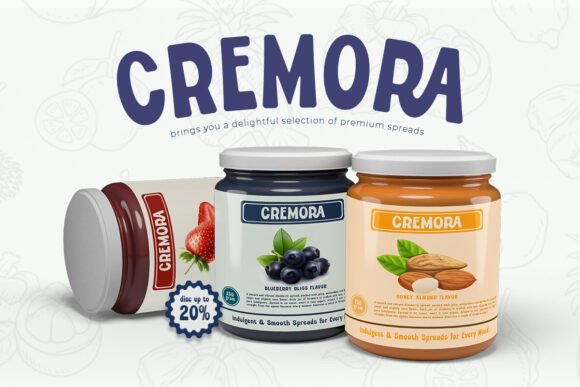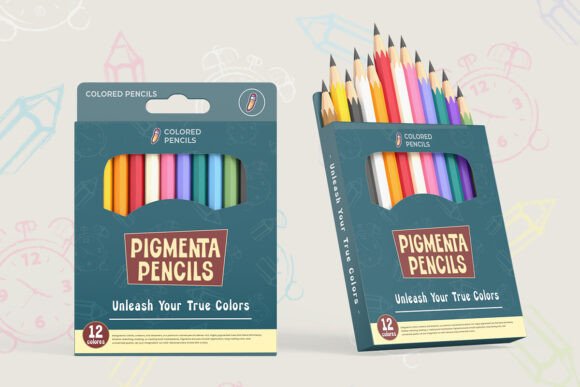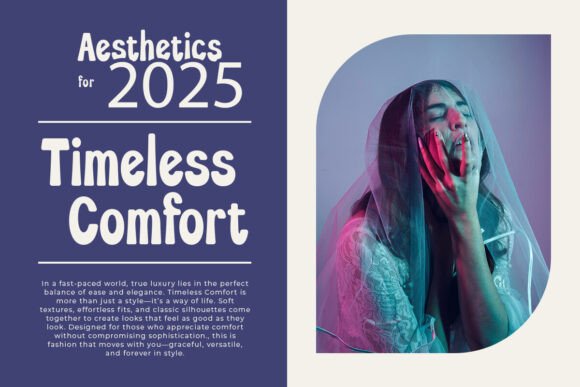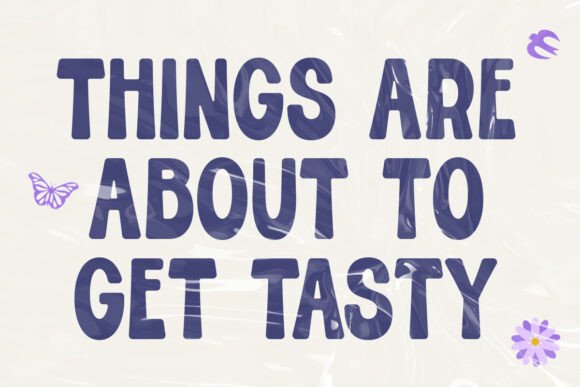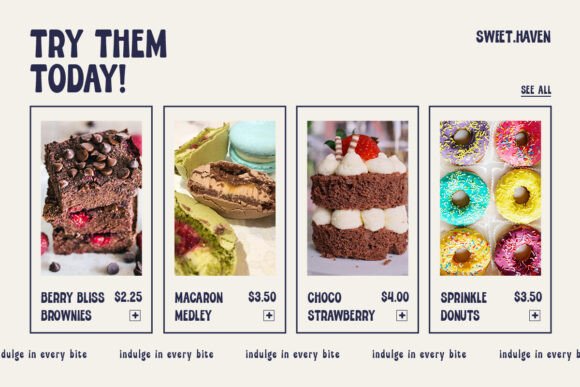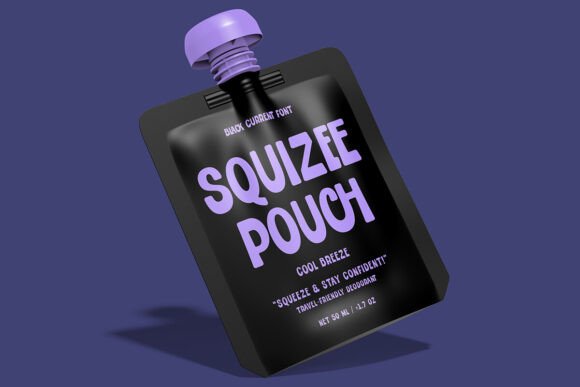
Introducing Black Currant Soft Condensed: The Ultimate Decorative Retro Serif Font
Are you on the hunt for a font that can add a touch of nostalgia and charm to your creative projects? Look no further than Black Currant Soft Condensed, a beautiful decorative retro serif font that’s perfect for designers and crafters alike. With its soft, condensed letterforms and vintage flair, this font is sure to bring a unique and captivating vibe to your designs.
A Perfect Blend of Elegance and Personality
Black Currant Soft Condensed is designed to offer a perfect blend of elegance and personality, making it ideal for a wide range of creative projects. The font features smooth edges and a retro-inspired style, which adds warmth and character to any design. Whether you’re working on a logo, poster, product packaging, or social media graphic, this font is sure to make your project stand out.
One of the standout features of Black Currant Soft Condensed is its unique combination of uppercase and lowercase styles. This allows you to experiment with different combinations and create visually appealing text arrangements that add depth and interest to your designs.
Multilingual Support for Global Reach
In today’s digital age, it’s more important than ever to create designs that can connect with audiences worldwide. That’s why Black Currant Soft Condensed comes with multilingual support, making it easy to create designs that can be enjoyed by people from different cultures and languages.
Ideal for a Variety of Creative Projects
Black Currant Soft Condensed is a versatile font that’s perfect for a wide range of creative projects, including:
- Logos: Add a touch of elegance and sophistication to your logo designs with this beautiful retro serif font.
- Posters: Create eye-catching posters that grab attention with the bold and charming letterforms of Black Currant Soft Condensed.
- Product Packaging: Add a touch of warmth and character to your product packaging designs with this unique and captivating font.
- Social Media Graphics: Create engaging social media graphics that stand out from the crowd with Black Currant Soft Condensed.
- Vintage-Style Branding: Achieve a retro look with this decorative font that’s perfect for vintage-style branding and marketing materials.
Why Choose Black Currant Soft Condensed?
So why should you choose Black Currant Soft Condensed for your creative projects? Here are just a few reasons:
- Unique and Captivating Design: This font features a unique and captivating design that’s sure to grab attention and add charm to your projects.
- Retro-Inspired Style: The retro-inspired style of Black Currant Soft Condensed adds a touch of nostalgia and warmth to any design.
- Elegant and Sophisticated: This font is perfect for designers who want to add a touch of elegance and sophistication to their projects.
- Multilingual Support: With multilingual support, you can create designs that connect with audiences worldwide.
In conclusion, Black Currant Soft Condensed is a beautiful decorative retro serif font that’s perfect for designers and crafters who want to add a touch of nostalgia and charm to their creative projects. With its soft, condensed letterforms, vintage flair, and multilingual support, this font is sure to bring a unique and captivating vibe to your designs. Whether you’re working on a logo, poster, product packaging, or social media graphic, Black Currant Soft Condensed is the perfect choice.